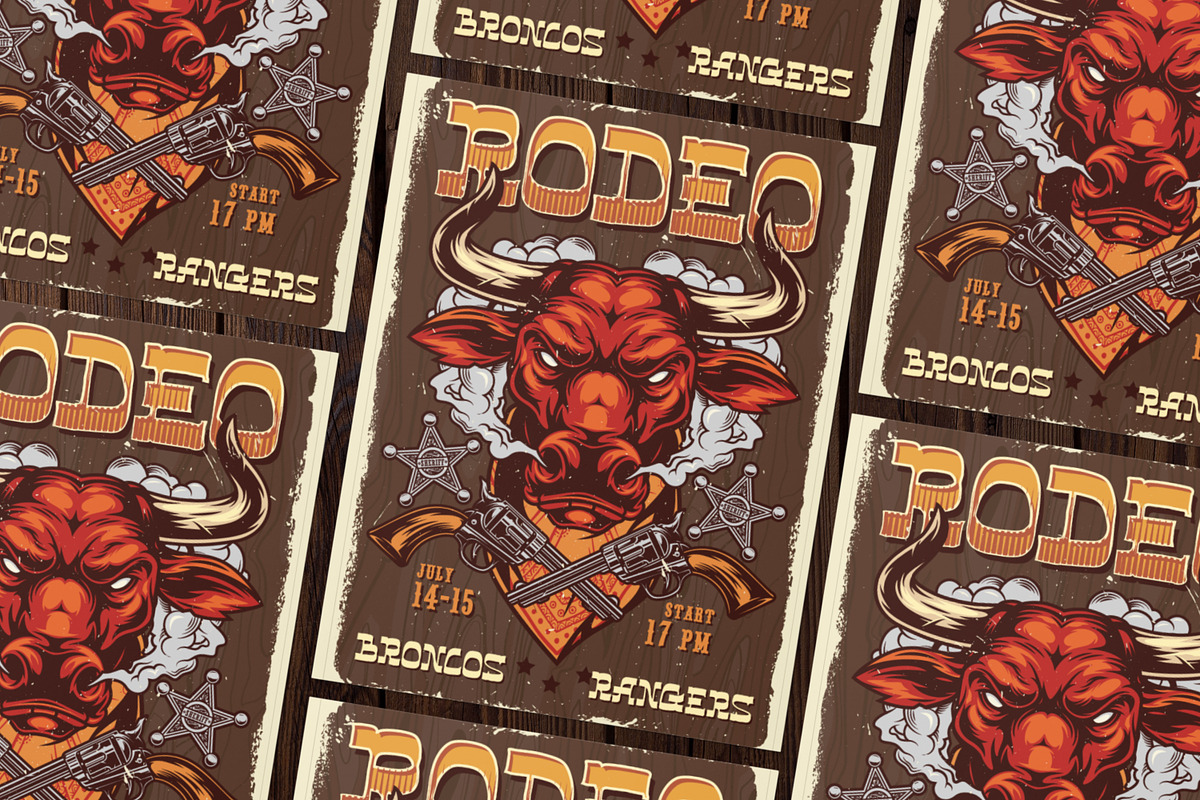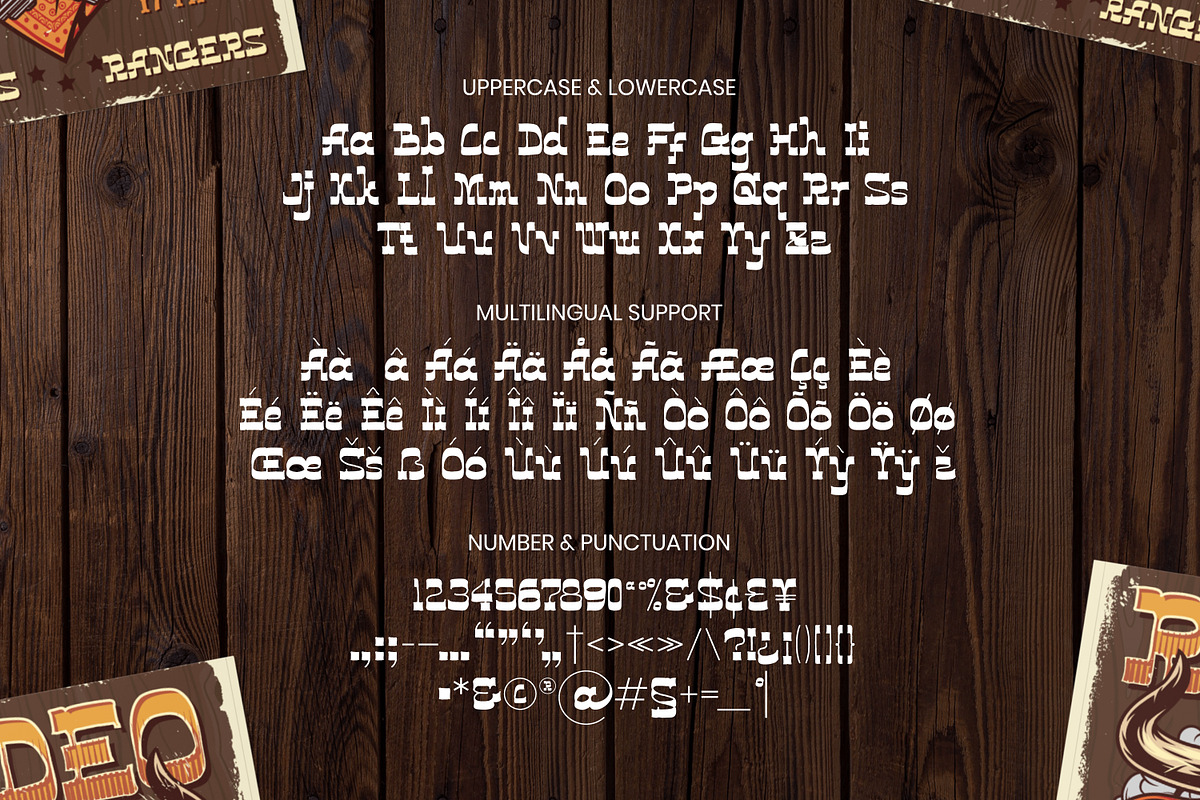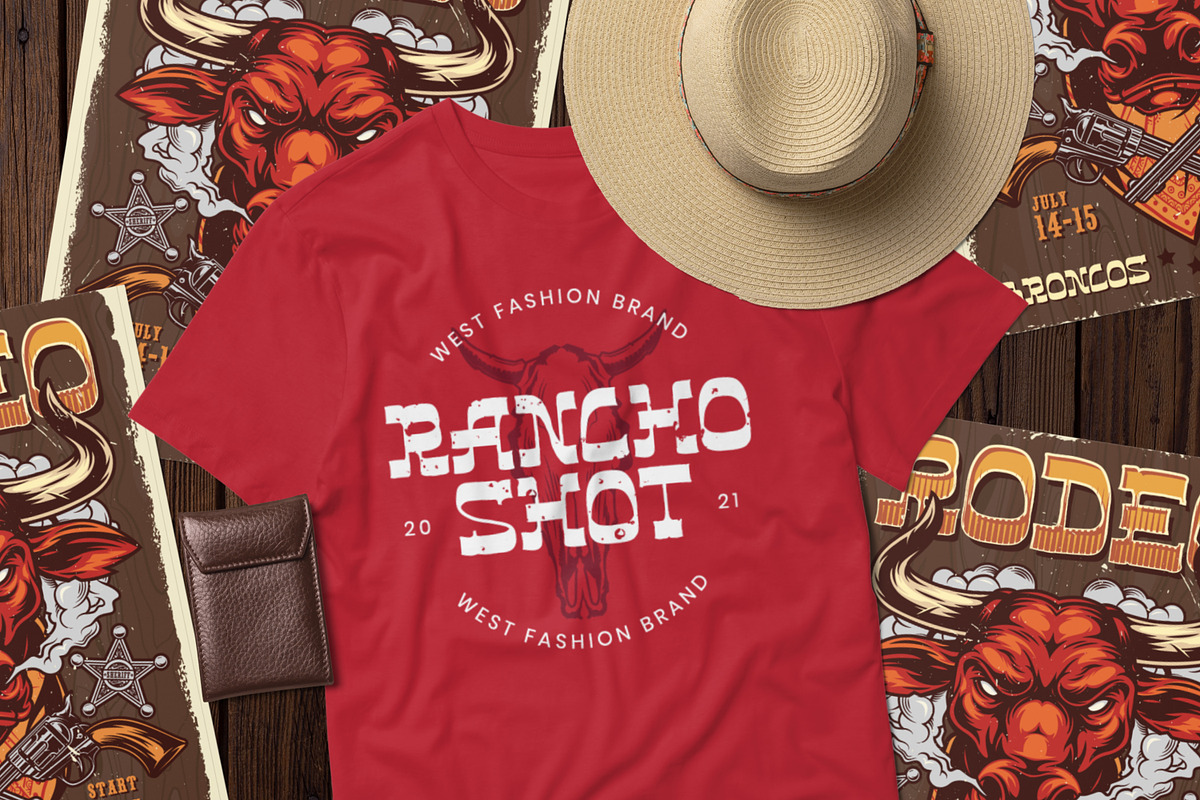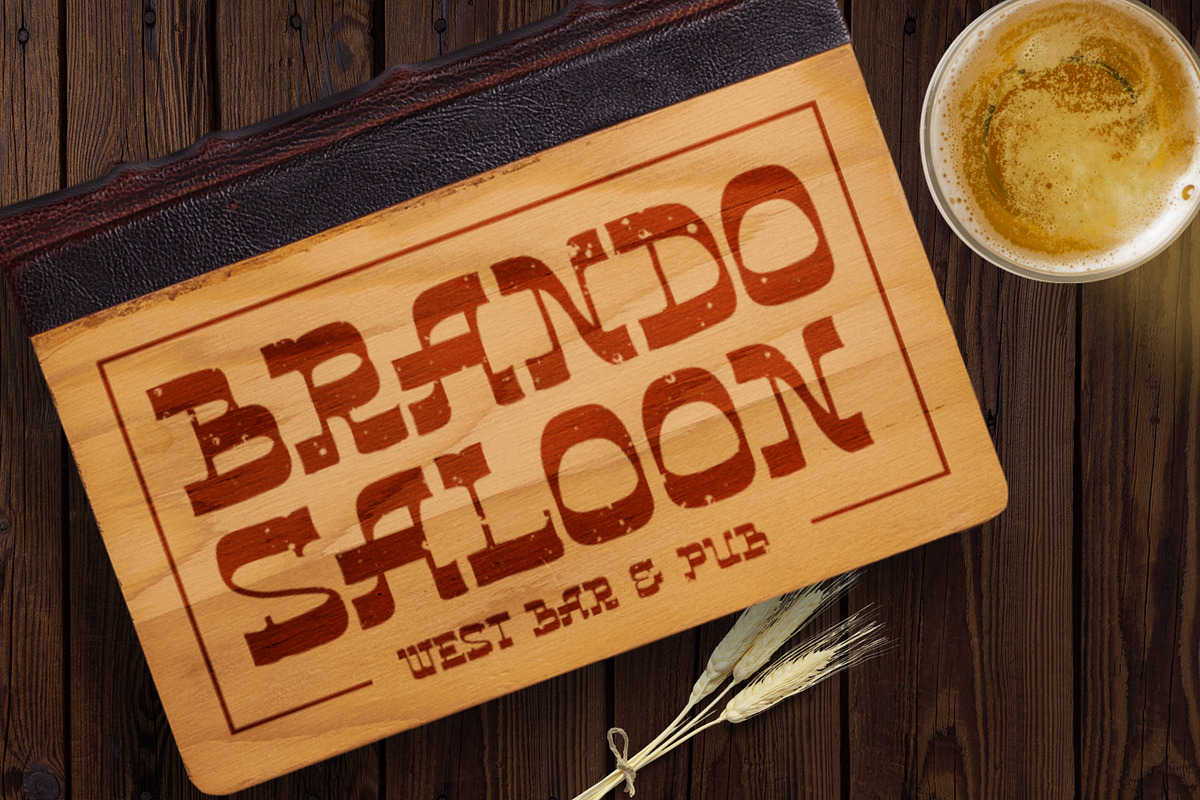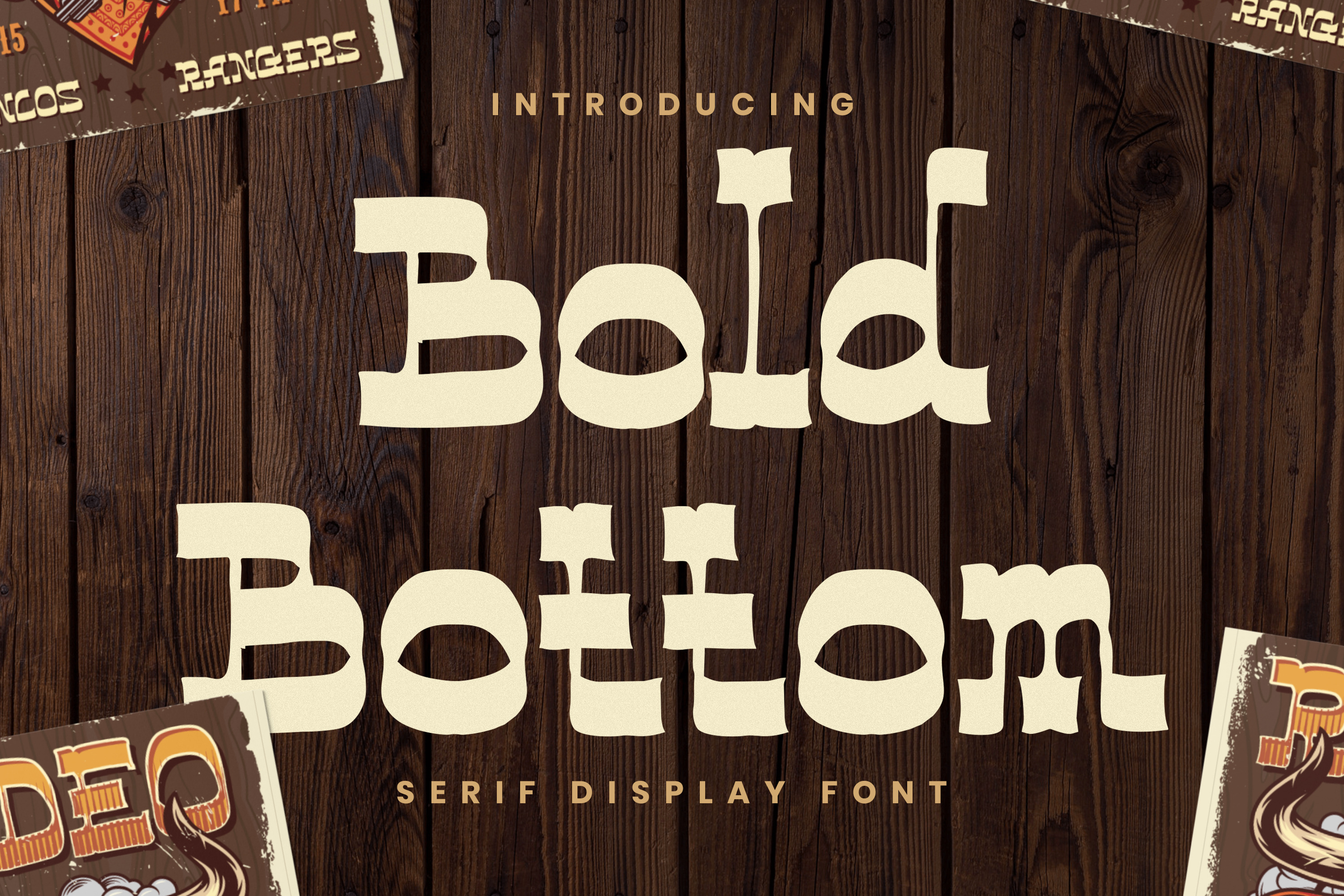
Bold Bottom - Western Serif Font
Saddle up and introduce Bold Bottom, a charismatic and rugged serif display font that channels the untamed spirit of the Wild West. Inspired by vintage saloon signage and classic rodeo posters, this typeface is designed to make a powerful statement.
True to its name, Bold Bottom features a distinctively weighted baseline, giving each character a strong, grounded, and confident appearance. The chunky, blocky serifs and unique letterforms, such as the playfully curled ascenders and the strong, deliberate strokes, infuse your text with authentic, handcrafted character. It’s a font that feels both nostalgic and refreshingly bold.
Whether you're designing a logo for a beverage brand, creating eye catching apparel, crafting a menu for a rustic bar, or designing posters that need to shout from the walls, Bold Bottom delivers undeniable impact and personality.
- Uppercase and Lowecase Characters.
- PUA Encoded Characters.
- Numerals and Punctuations.
- Alternates and Ligatures.
- Multilingual Support.